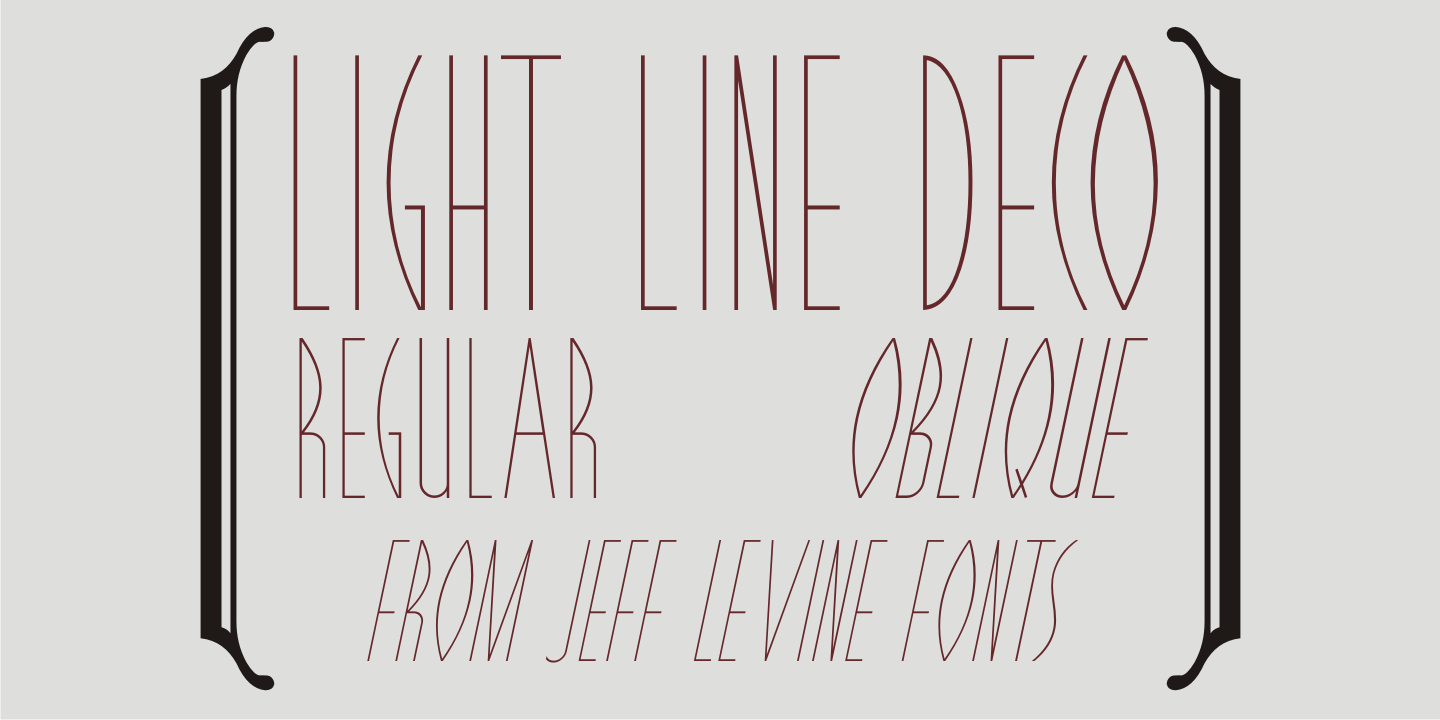
Light Line Deco
The unusual, thin line hand lettering on the cover of the sheet music for 1936's 'If You Love Me” was the basis for Light Line Deco JNL, which is available in both regular and oblique versions.